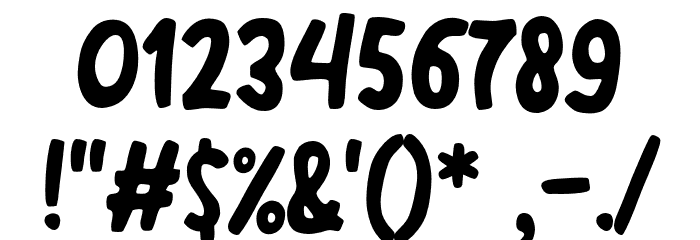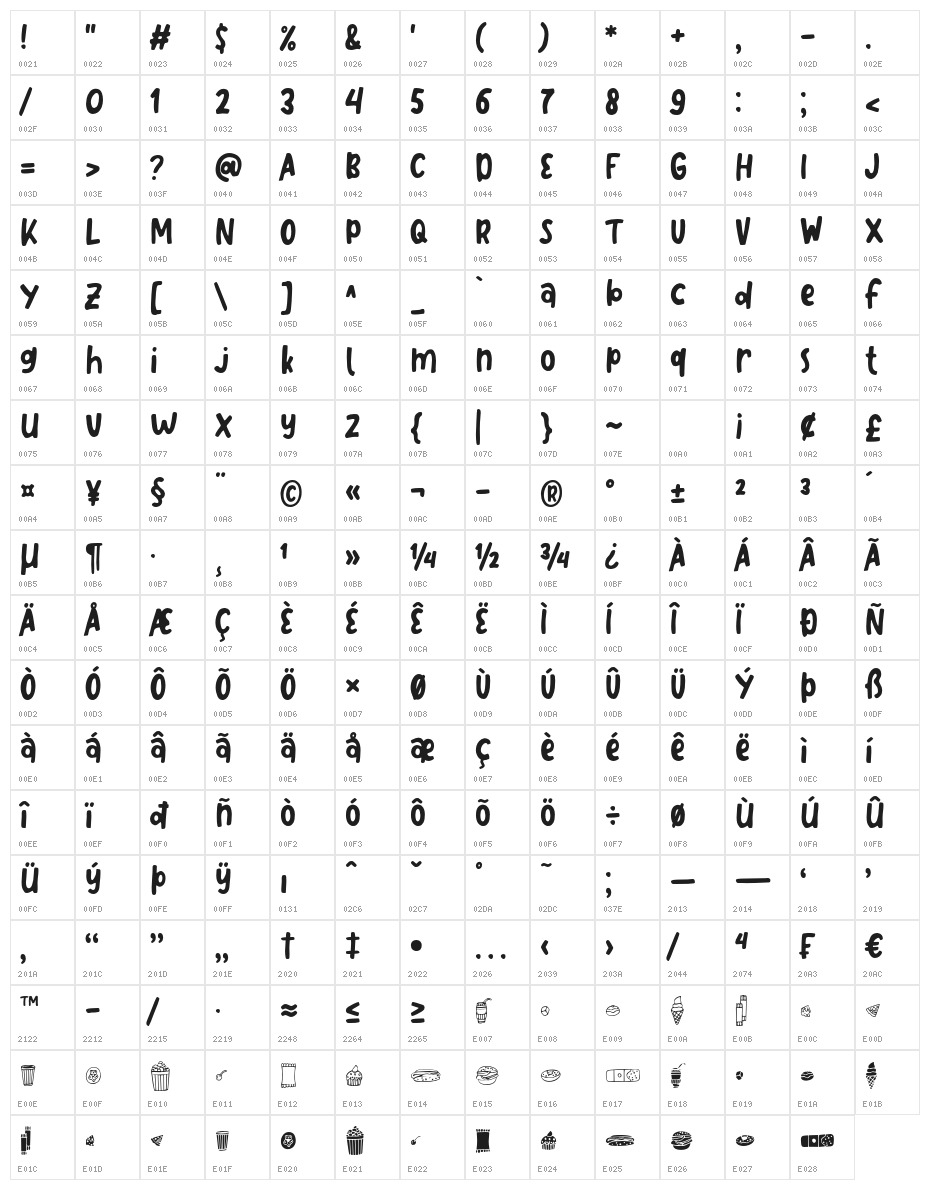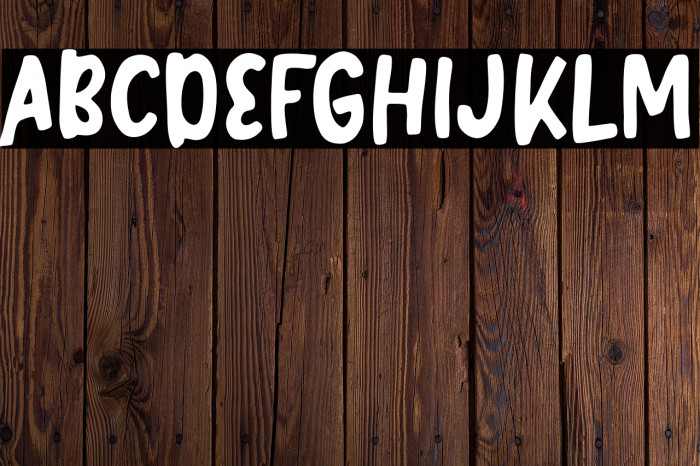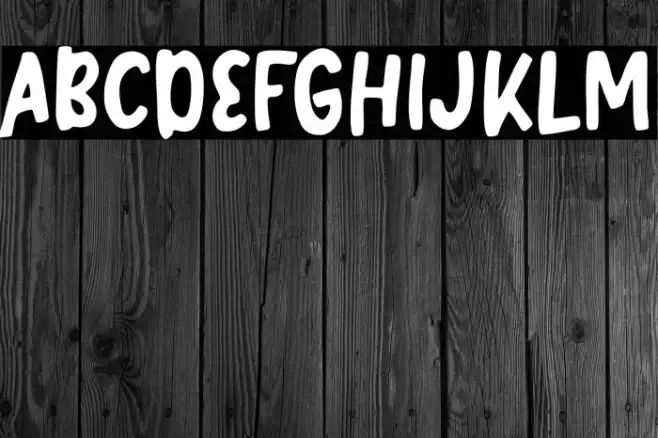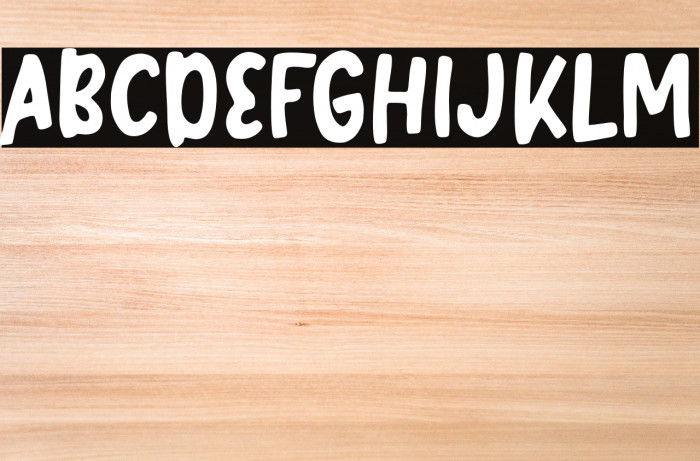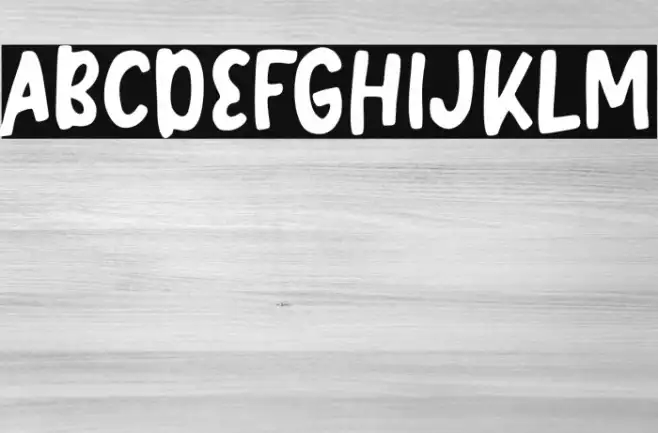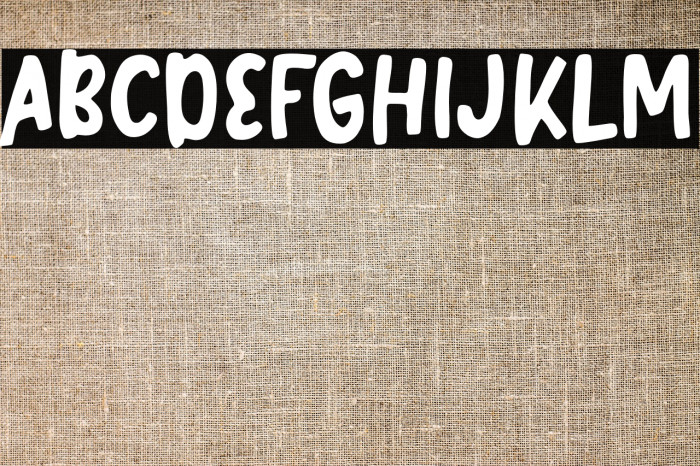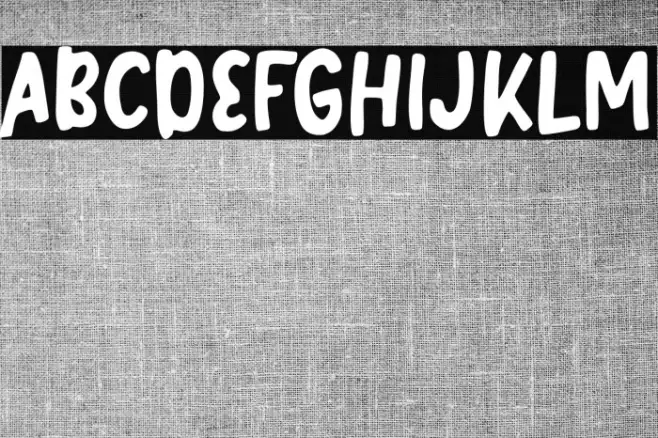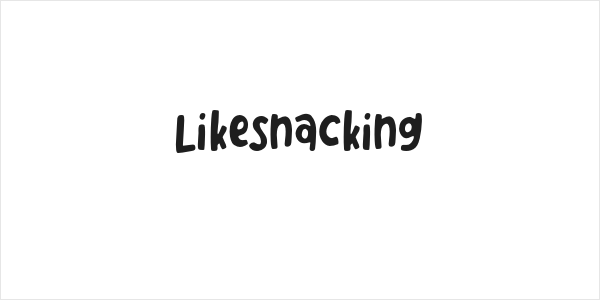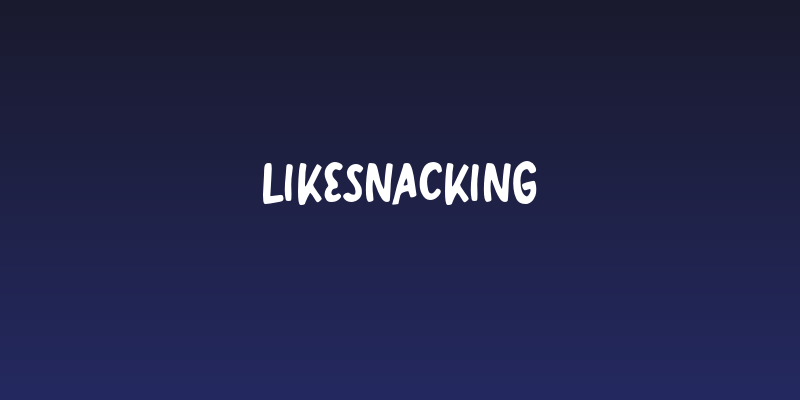
LikeSnacking Font
LikeSnacking Description
This playful and bold font features thick, rounded strokes that give it a friendly and approachable appearance. The characters are slightly irregular, adding a whimsical touch that makes it stand out. The uppercase and lowercase letters maintain a consistent style, with a slight tilt that adds to its casual vibe. Numbers and special characters are designed with the same playful aesthetic, making the font versatile for various creative projects. The overall design is reminiscent of hand-drawn lettering, perfect for adding a personal touch to any design.
| Proposed Projects | Ideal for children's books, playful branding, greeting cards, and social media graphics. |